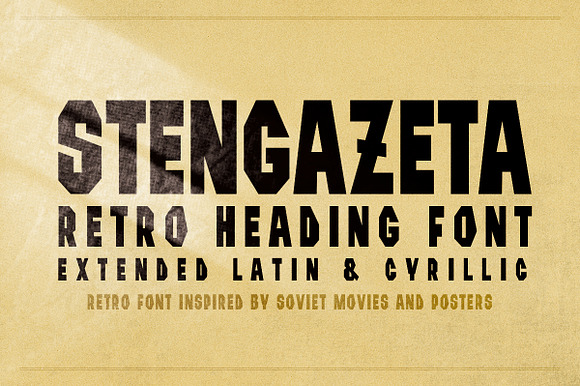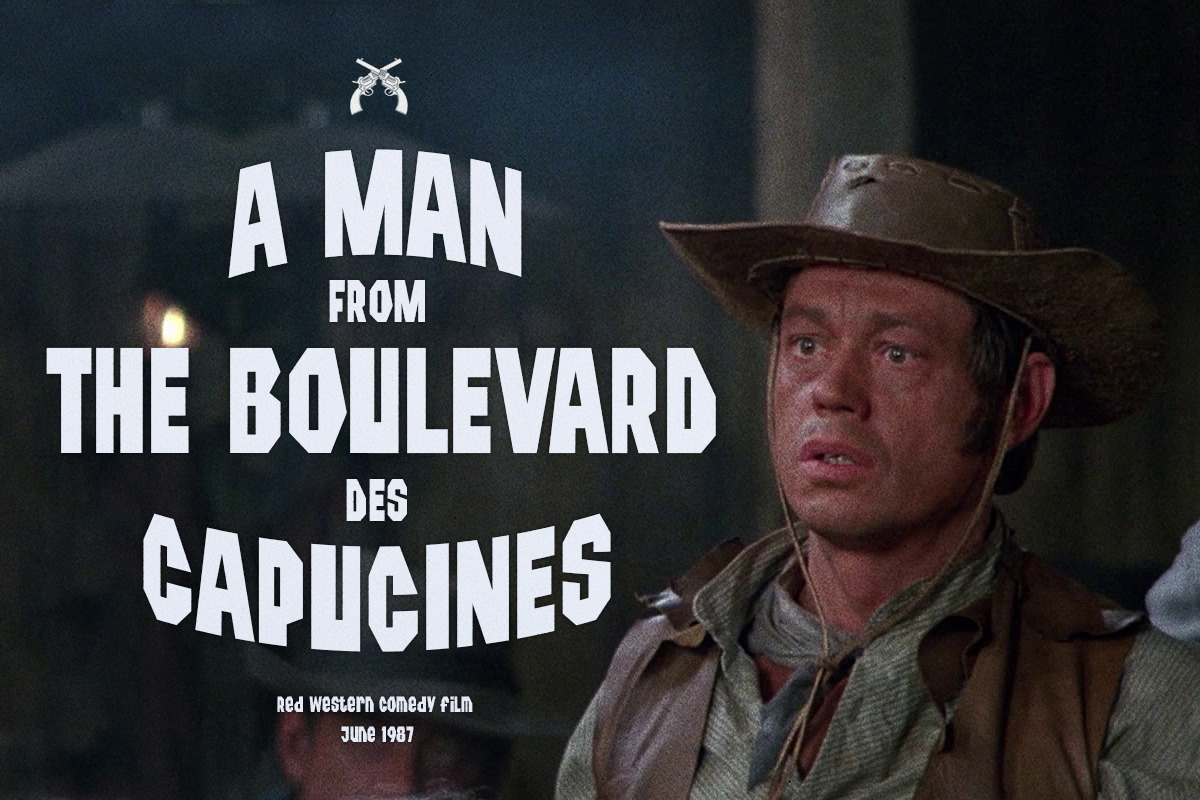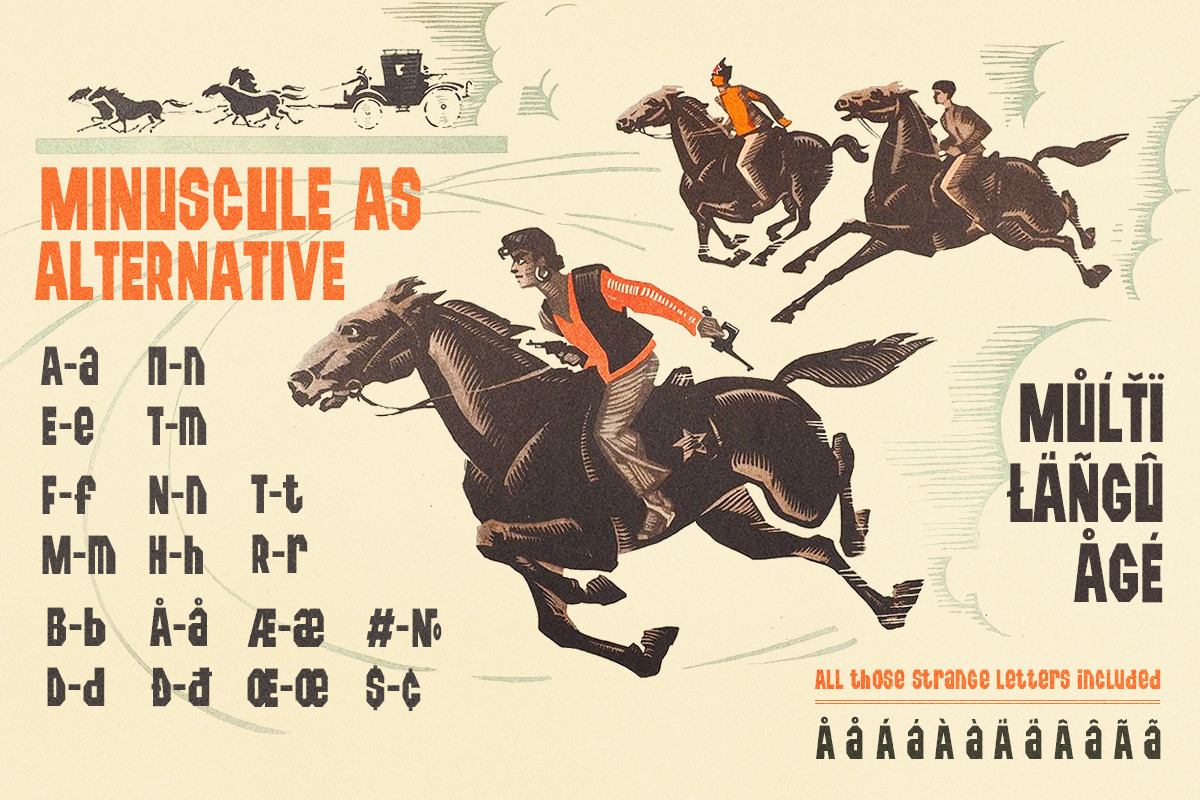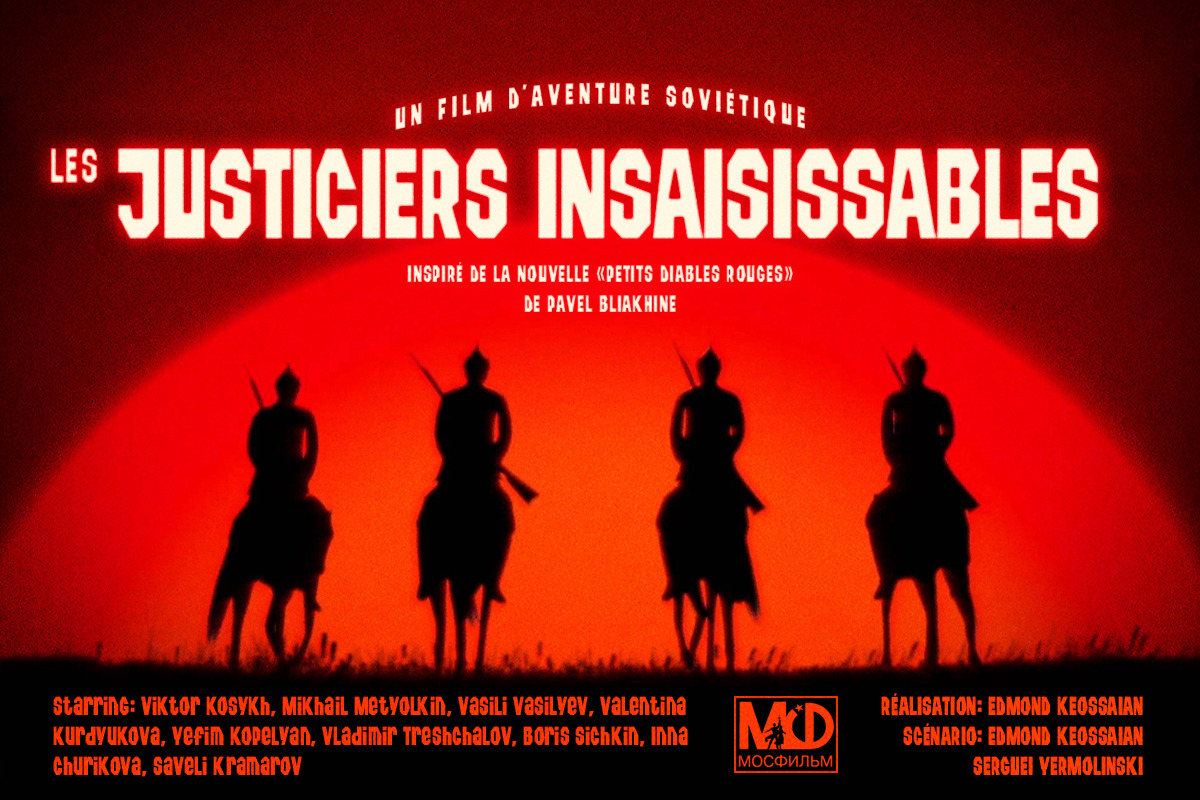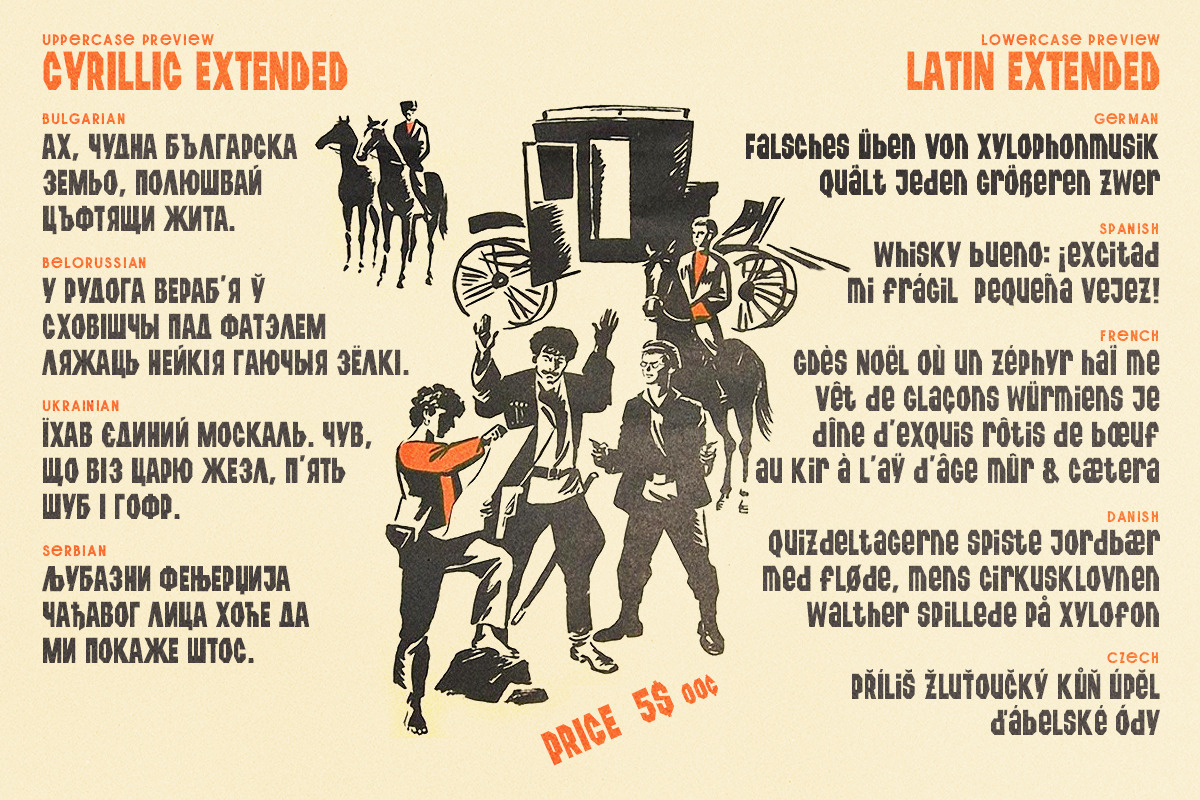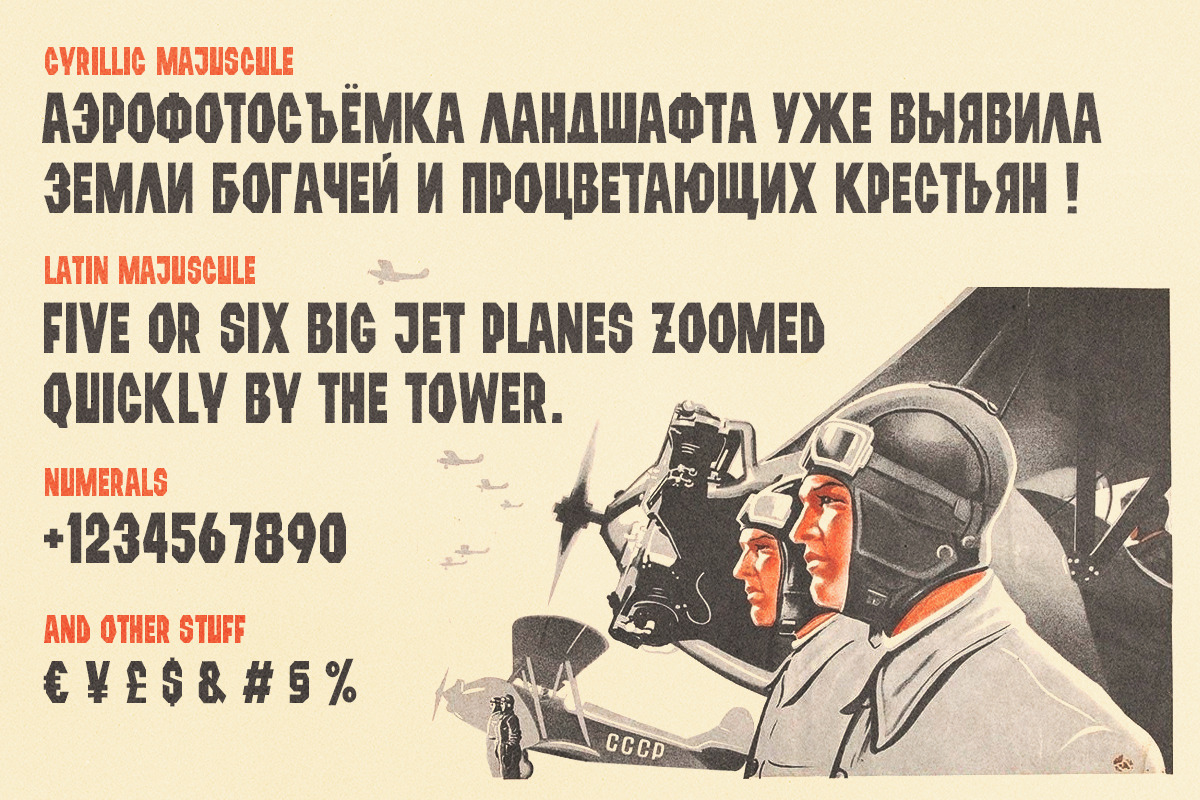
Stengazeta: retro grotesque font
Introducing a retro grotesque called "Stengazeta". The name means "wall newspaper" - this is very popular in USSR genre of handmade artwork that is actually a mix of newspaper and poster. During the Soviet era you could find it everywhere - in factories, schools, research labs, and even in army and police. Sometimes it was a kind of official propaganda, but often just a way of expressing of creativity of co-workers. The letterforms are bold and grotesque with strong handmade feeling. It has Extended Eastern Europe Cyrillic and some of Extended Eastern Europe Latin letters. "Stengazeta" created for titles, poster design, web design, branding and packaging works, illustrations, badges and other typography works.
ST-Stengazeta supports languages: Belarusian, Bosnian, Bulgarian, Croatian, Czech, Danish, English, Russian, Serbian, Slovenian, Spanish, Ukrainian, and probably others )